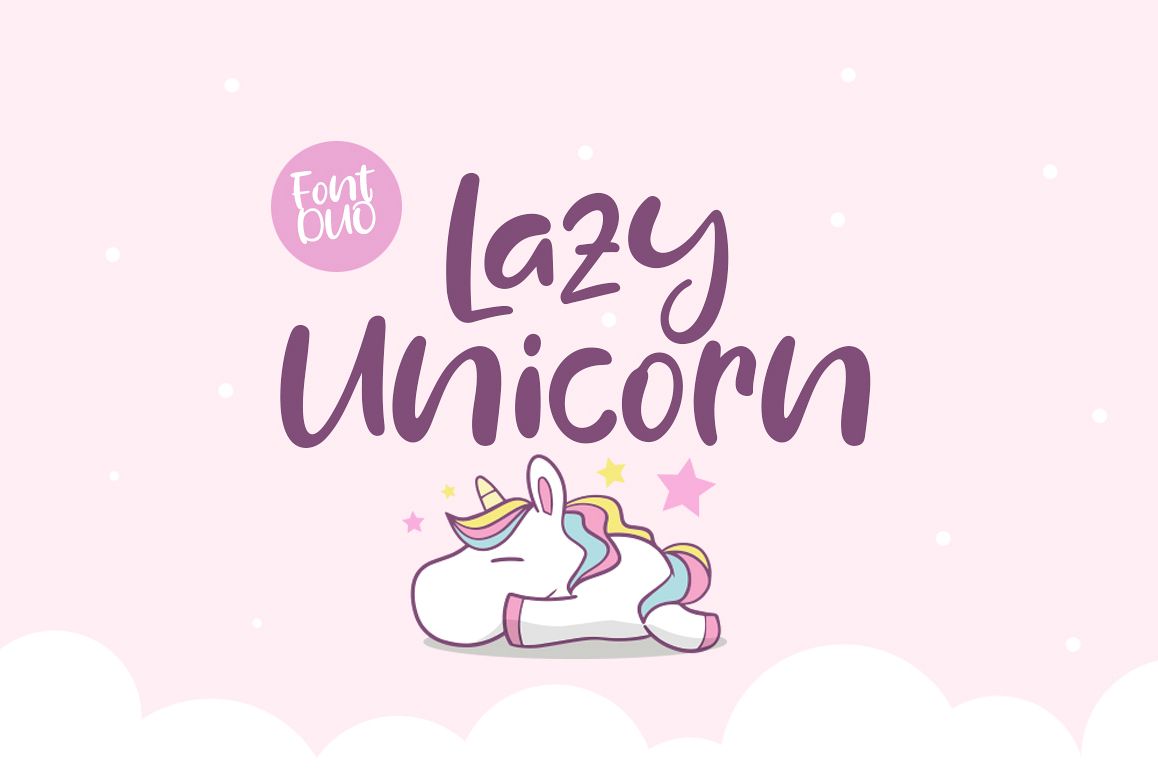
Introducing, Lazy Unicorn font a fun bold display typeface with cheerful theme for your fun project. Lazy Unicorn font suitable for logo, branding, greeting card, poster and any design that you create.